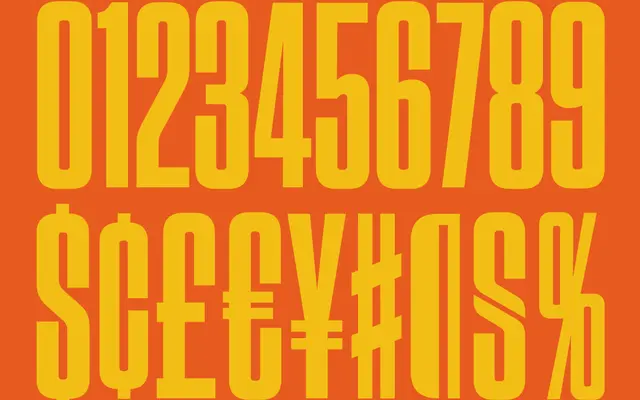
Tungsten
Hoefler & Co · Jonathan Hoefler, Berton Hasebe · 2009
A compressed sans from Hoefler & Co that fits big voices into small horizontal space, leaning on athletic and civic lettering rather than brittle condensed gothic.
A compressed sans by Jonathan Hoefler and Berton Hasebe that pitches itself between the mechanical condensed gothic and the more humane lettering on stadium fascias and municipal signs. Seven weights from Thin to Black with matching italics, plus narrower and rounded subfamilies. Reach for it on sports identities, political campaigns and editorial headlines that need to shout in tight measures without becoming hostile.
H&Co classify Tungsten as a compressed sans serif, narrow but not pinched, drawing on the friendly authority of municipal and athletic lettering rather than the brittle geometry of older condensed gothics.